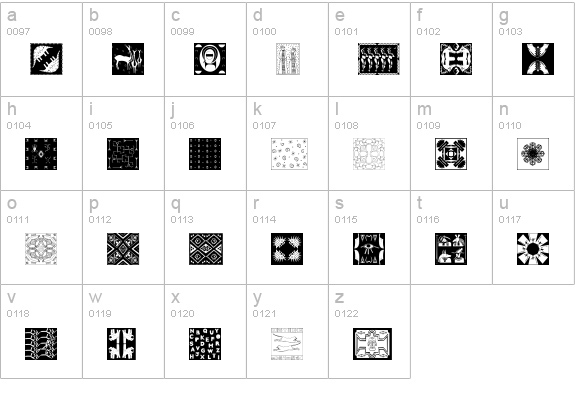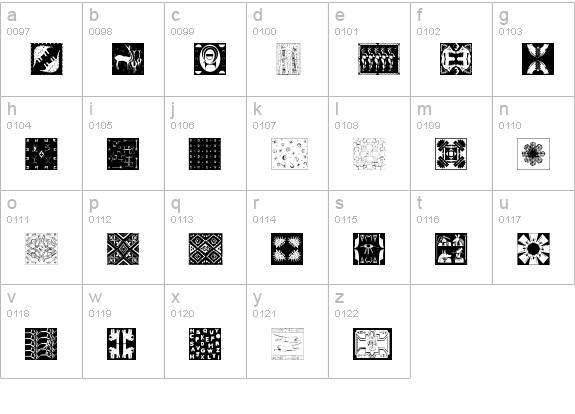
AfricanPattern Font Details
AfricanPattern font is a unique and vibrant typeface inspired by traditional African patterns and designs. Its intricate details and bold shapes make it perfect for adding a touch of cultural flair to your projects. This font captures the essence of African artistry and craftsmanship, making it a standout choice for anyone looking to infuse their designs with a sense of authenticity and creativity. Best of all, AfricanPattern font is completely free to download at FontsMarket.com. Whether you're working on a poster, flyer, website, or any other design project, this font is sure to make a statement and leave a lasting impression. Embrace the beauty and richness of African culture with AfricanPattern font today!